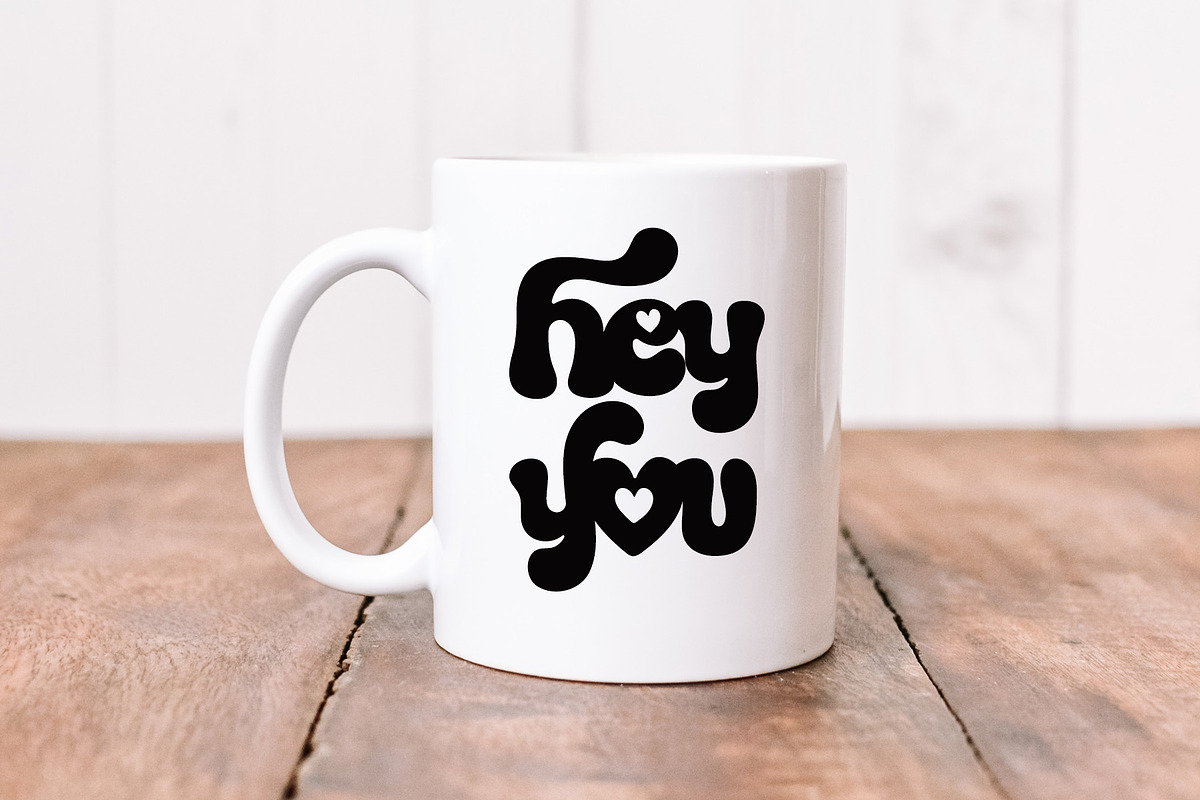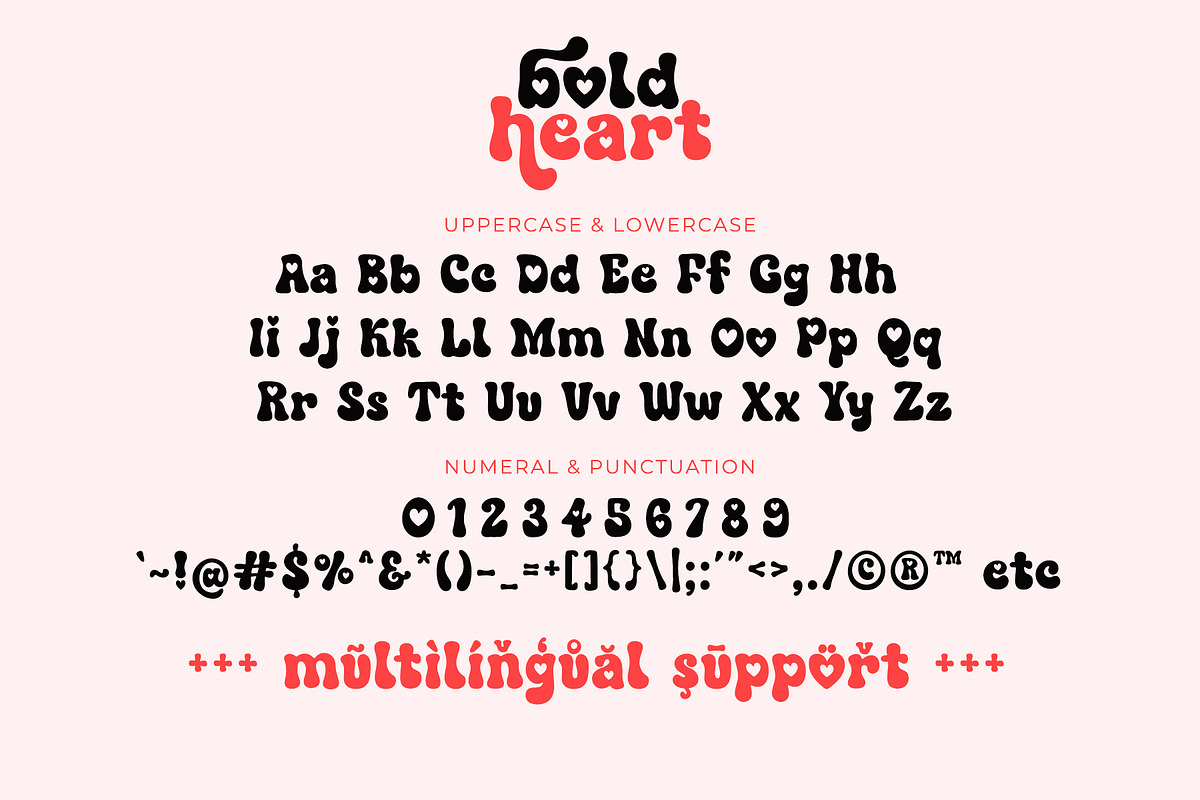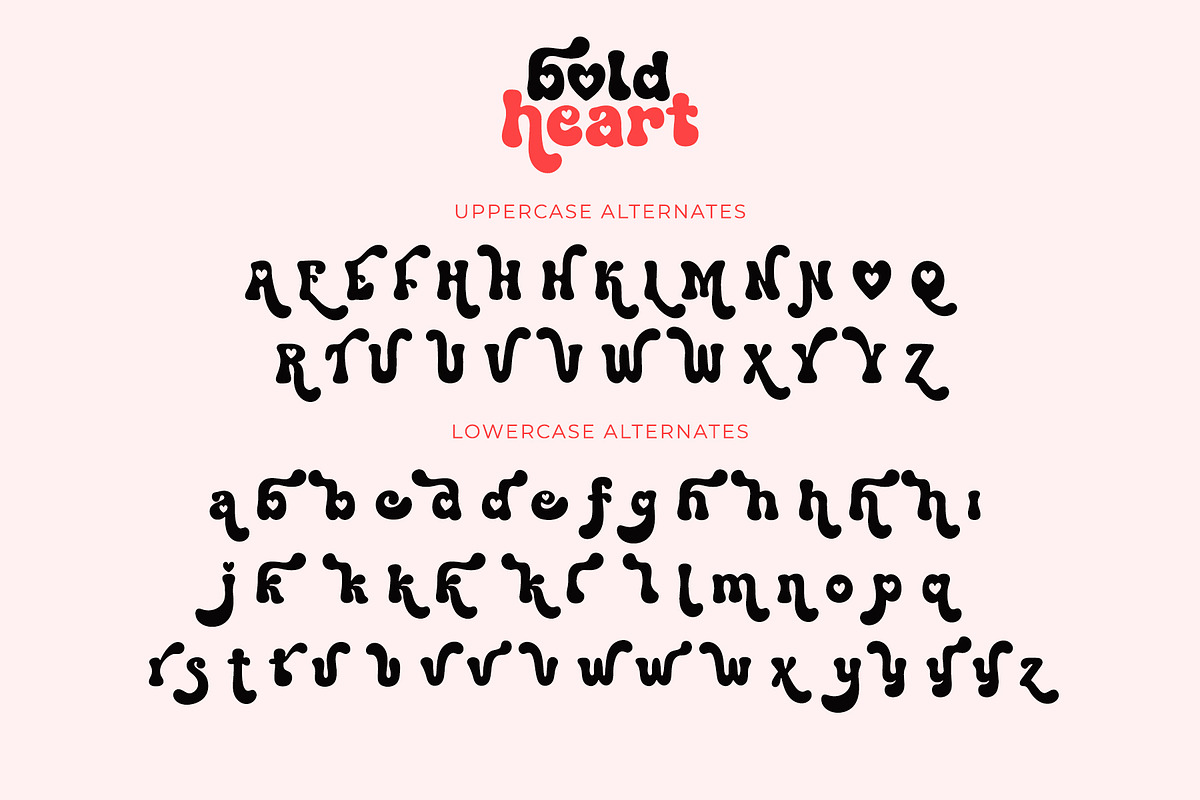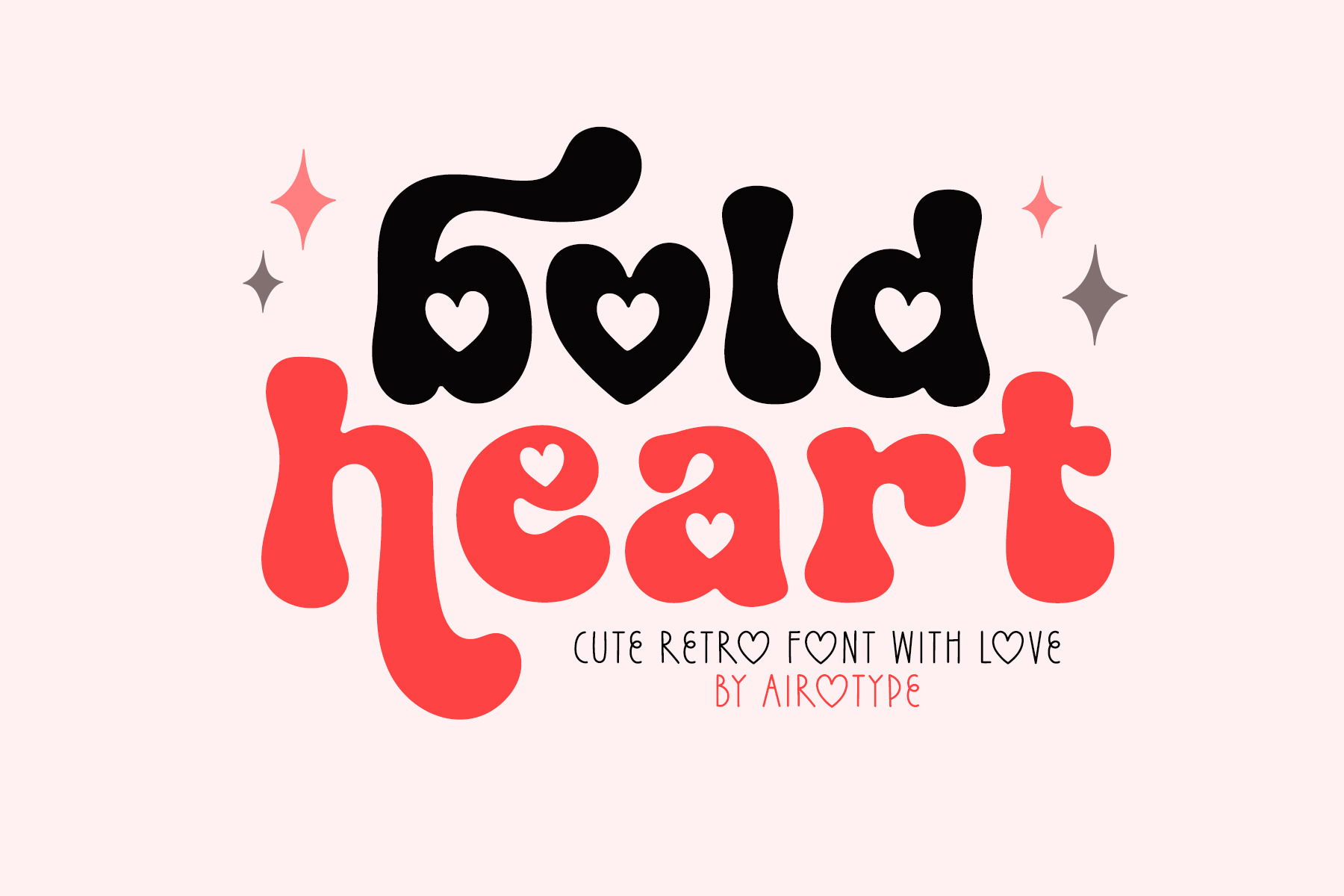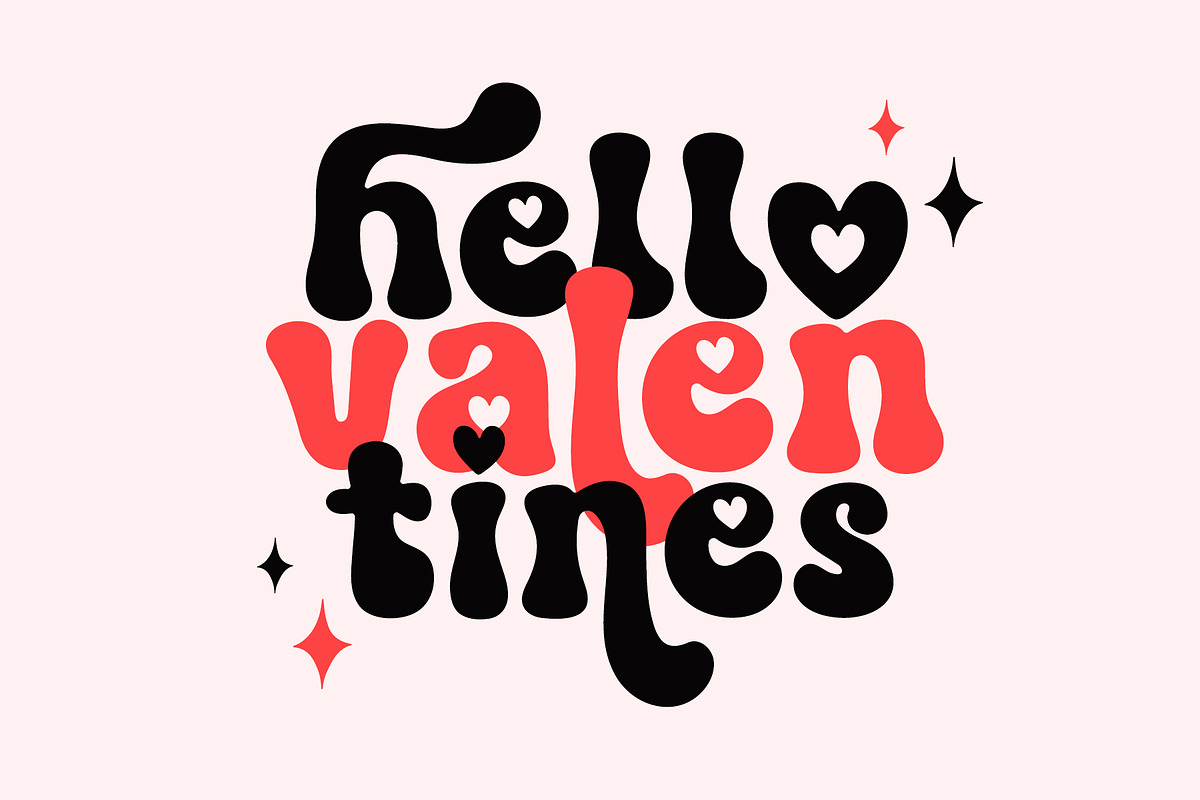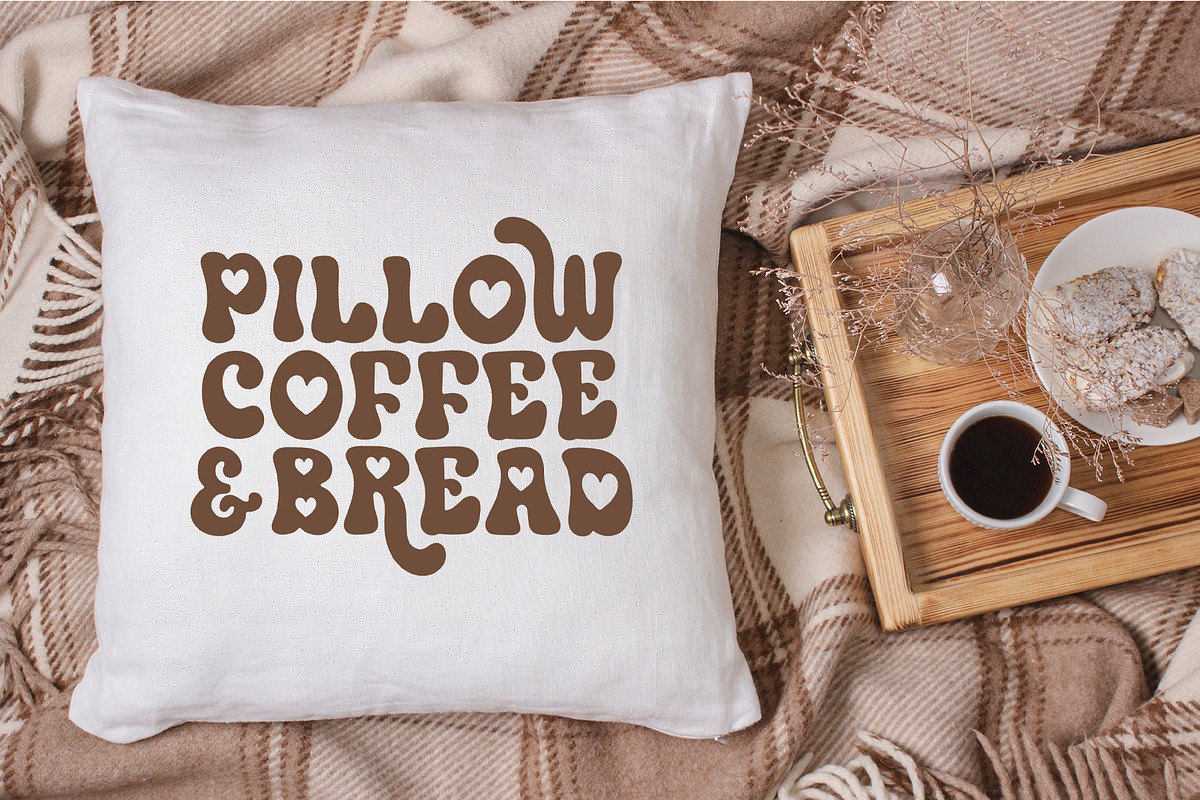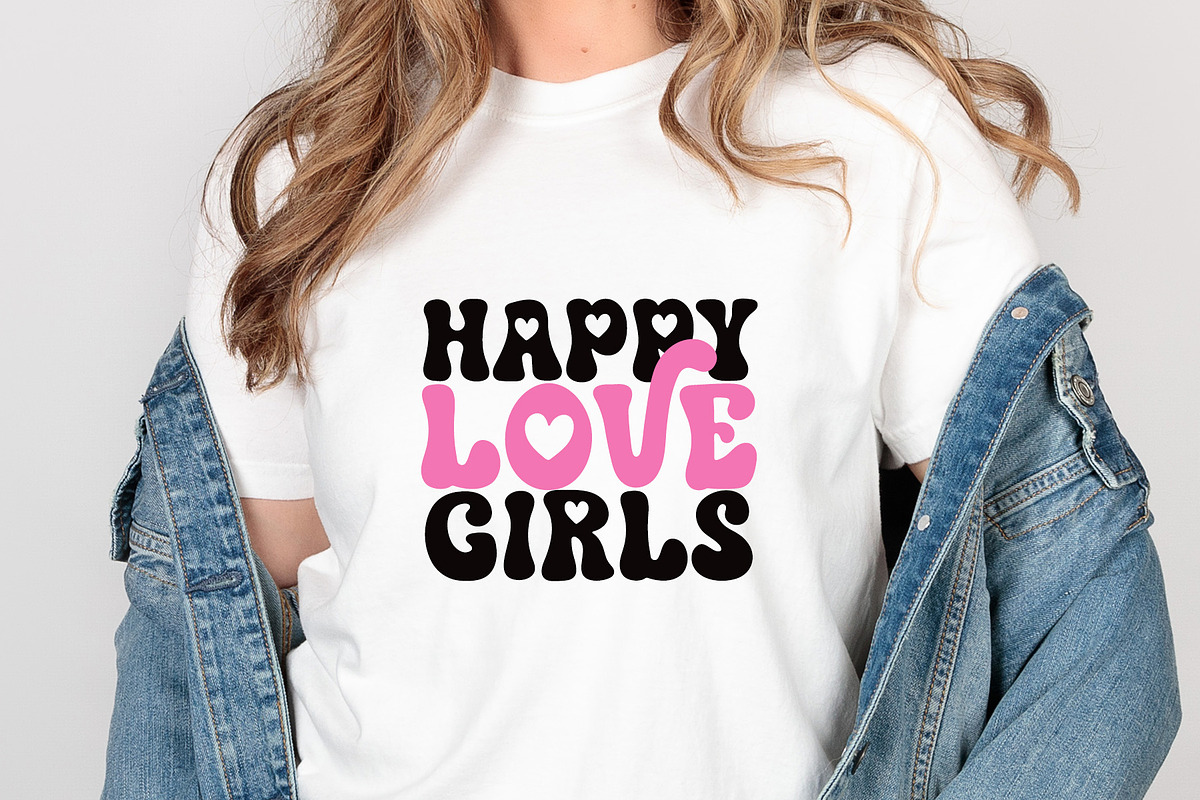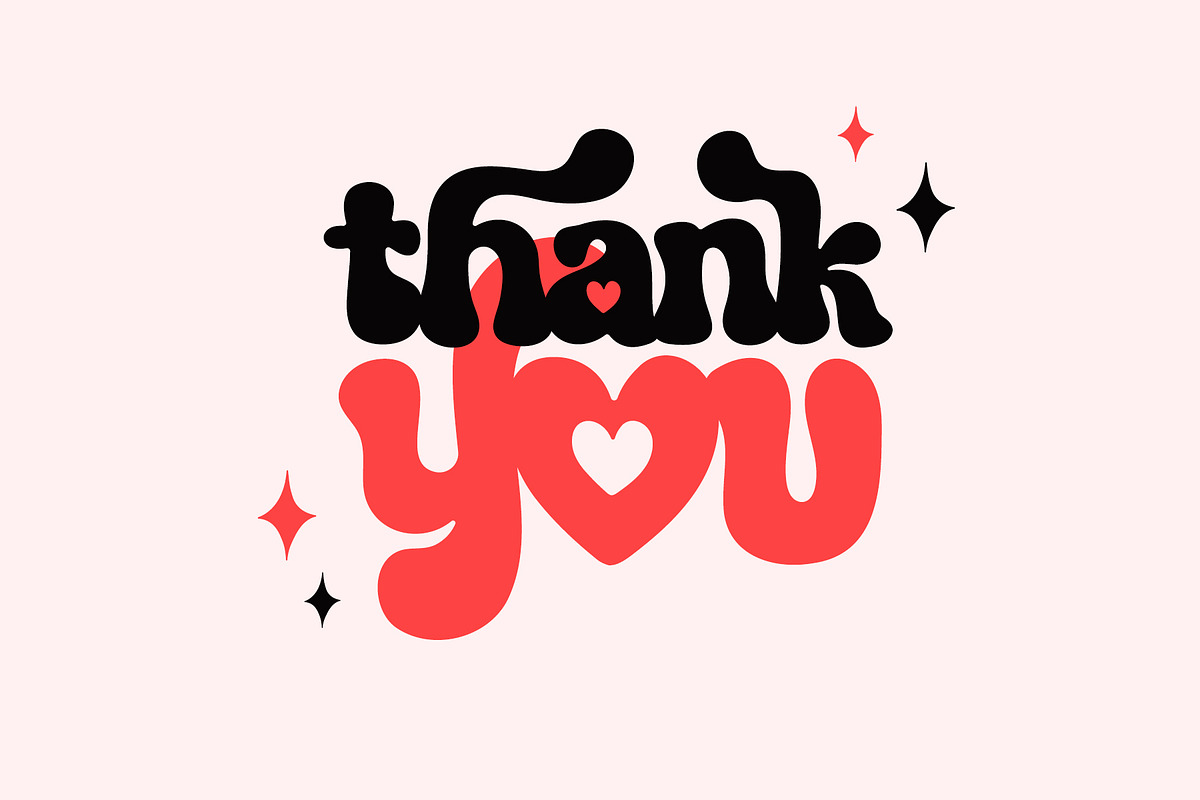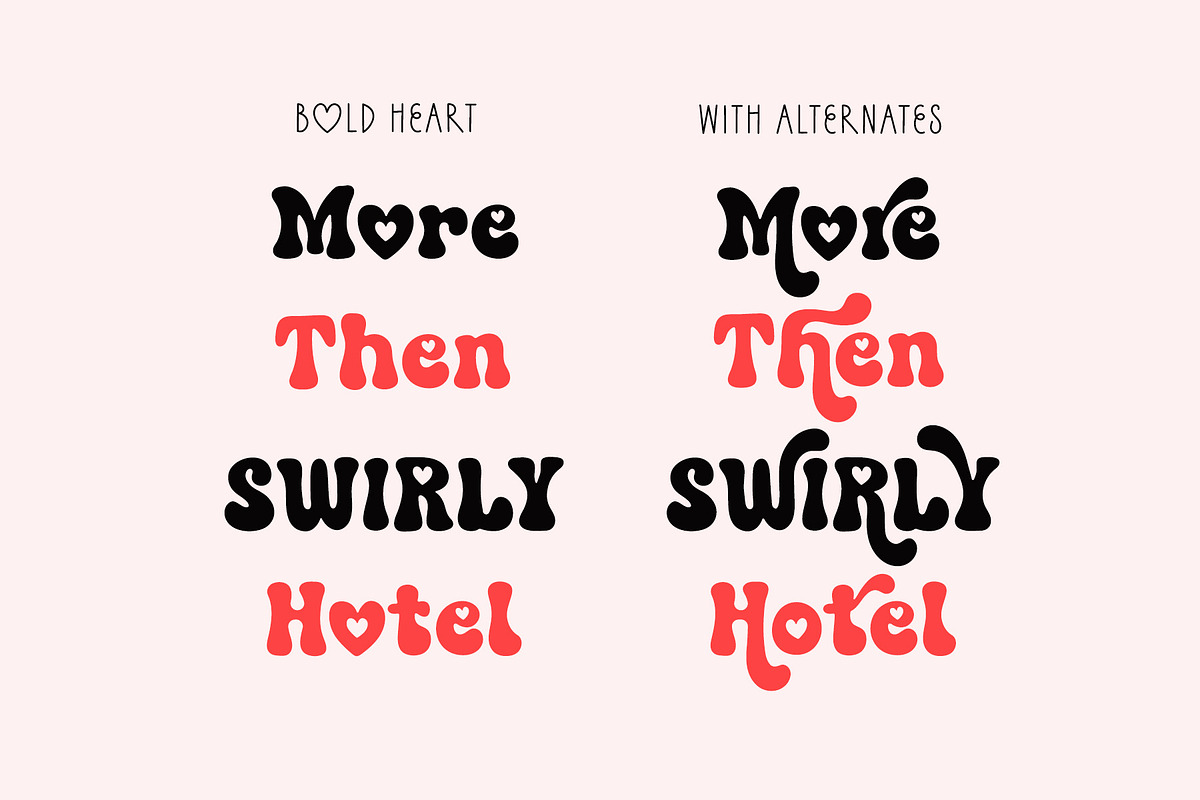
Bold Heart - Retro Font with Love
Bold Heart is cute retro font with heart accent. This font has lovely and fun vibes. This font has some extra alternates for more options in designing.
Bold Heart is lovely font for wide ranges of design with cute and retro vintage theme, such as valentines day, t-shirt, display, crafting, sticker, quotes, tumbler, sublimation, and many more.
- Uppercase and Lowercase (including alternates)
- Most Multilingual Accent